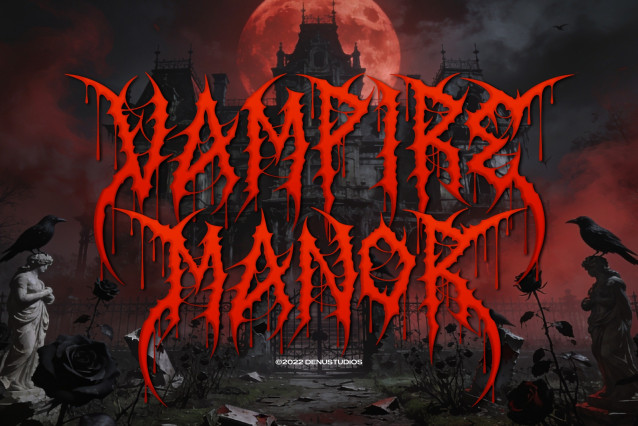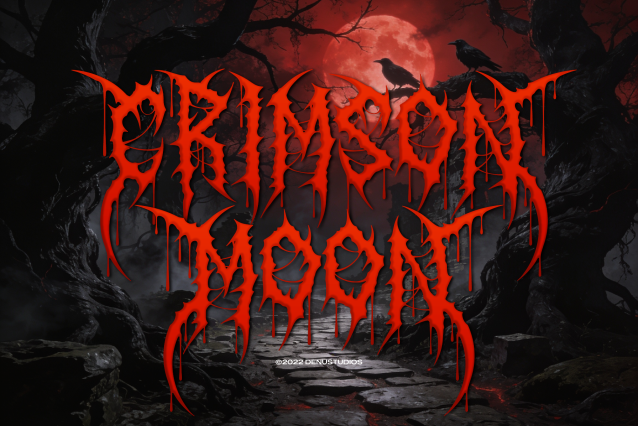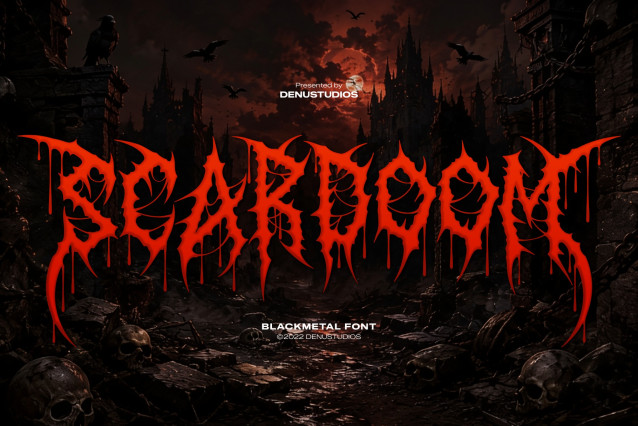
Scardoom Black Metal Font
Scardoom Black Metal Font, from Denustudios, suitable for any projects such as: logos, branding projects, homeware designs, product packaging, mugs, quotes, posters, shopping bags, t-shirts, book covers, name card, invitation cards, greeting cards, label, photography, watermark, special events, and all your other lovely projects that need a Black Metal taste.
• Alternate and Ligature